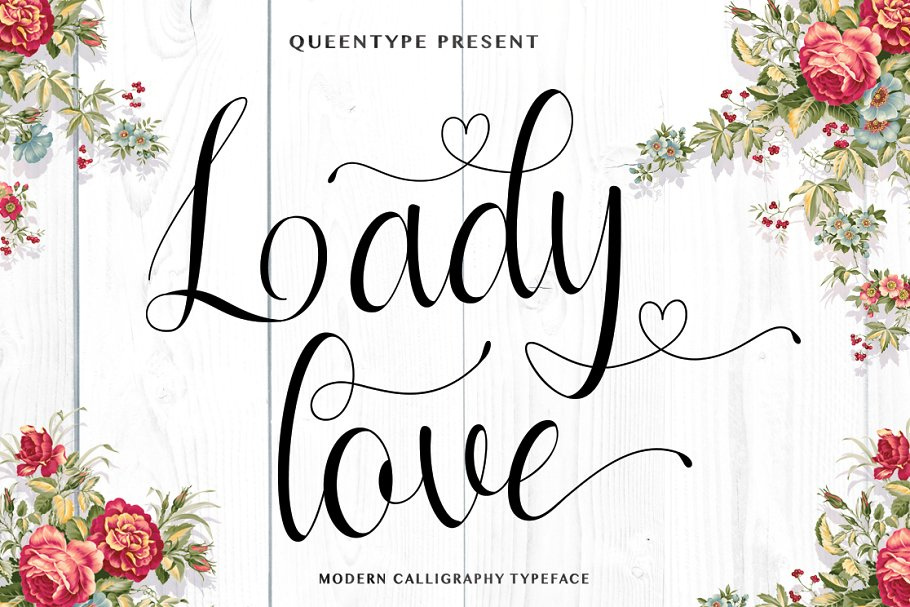
Ladylove Script Font
Ladylove Script Font is perfect for romantic wedding invitations, feminine beauty brand logos, elegant boutique signage, lovely greeting cards, sophisticated fashion campaigns, graceful spa treatments, refined hospitality branding, romantic Valentine's materials, delicate personal stationery, and charming feminine lifestyle brands.
Ladylove Script Font is exciting because it perfectly captures the essence of romantic femininity and graceful elegance, creating a script typeface that embodies the tender beauty, sophisticated charm, and loving spirit that defines authentic feminine expression. This font brings romantic sophistication and feminine authenticity to any project, making it ideal for brands that want to convey love, grace, and the beautiful power of feminine elegance and romantic connection. Its loving character and graceful appeal create an atmosphere of romantic sophistication that resonates with audiences who appreciate the beauty of love and feminine refinement.
Ladylove Script Font family includes regular, light, and medium weights, plus romantic swashes, loving flourishes, and feminine ornamental elements, providing designers with comprehensive tools for creating romantic typography and lovingly sophisticated brand experiences.
This enchanting romantic script typeface combines feminine aesthetics with contemporary design functionality, making Ladylove Script Font Free Download a perfect choice for projects celebrating romantic beauty and feminine grace. The font's lovingly crafted letterforms feature romantic proportions and feminine styling that reflect the gentle strength and sophisticated beauty of authentic feminine elegance and romantic expression.
Whether you're designing romantic event materials, feminine beauty campaigns, or loving hospitality branding, Ladylove Script Font delivers unmatched romantic authenticity and feminine appeal. The font excels in both intimate romantic applications and larger celebration environments where love and feminine sophistication create memorable romantic experiences.
Romance professionals choose Ladylove Script Font for its ability to instantly communicate feminine grace and romantic beauty while creating emotional connections with audiences seeking authentic love experiences and feminine sophistication. The font's loving character makes it particularly effective for wedding planners, beauty brands, and romantic lifestyle companies.
Each character reflects the flowing artistry of romantic penmanship, featuring loving curves and feminine proportions that create typography as beautiful and romantic as love letters, gentle caresses, and the most sophisticated expressions of feminine elegance and romantic love.